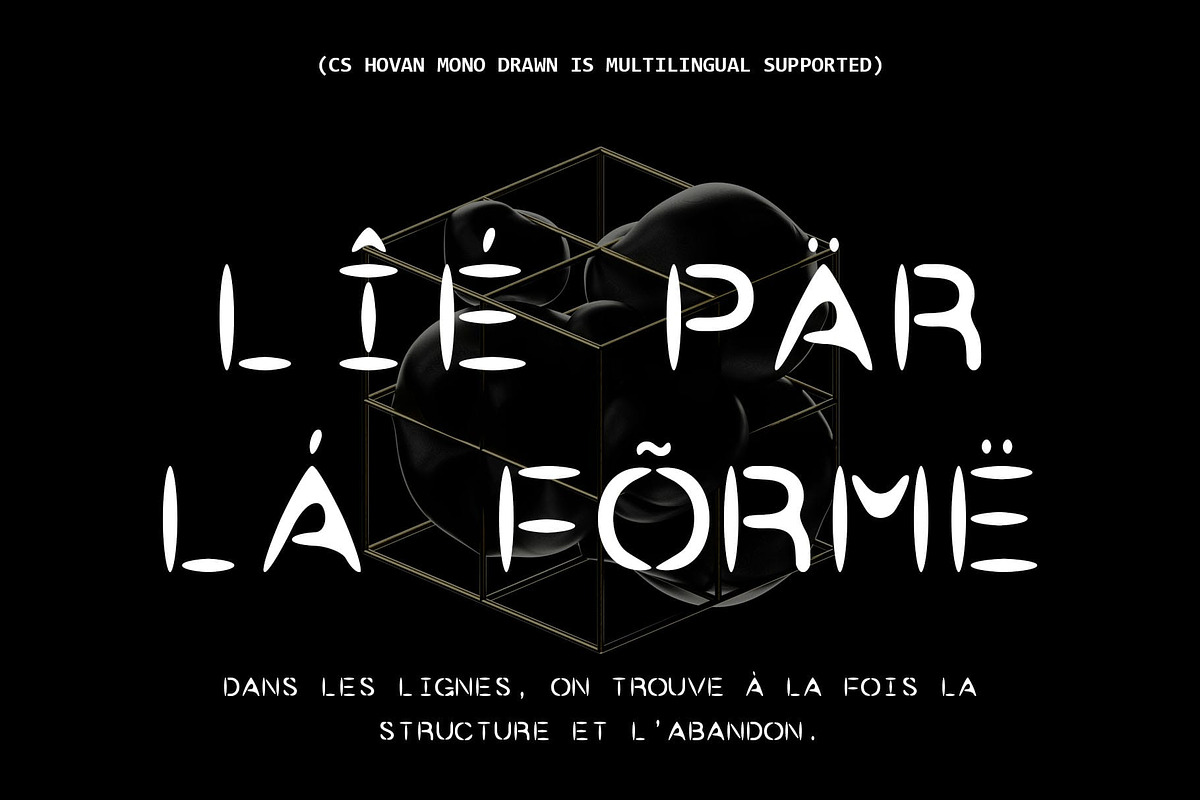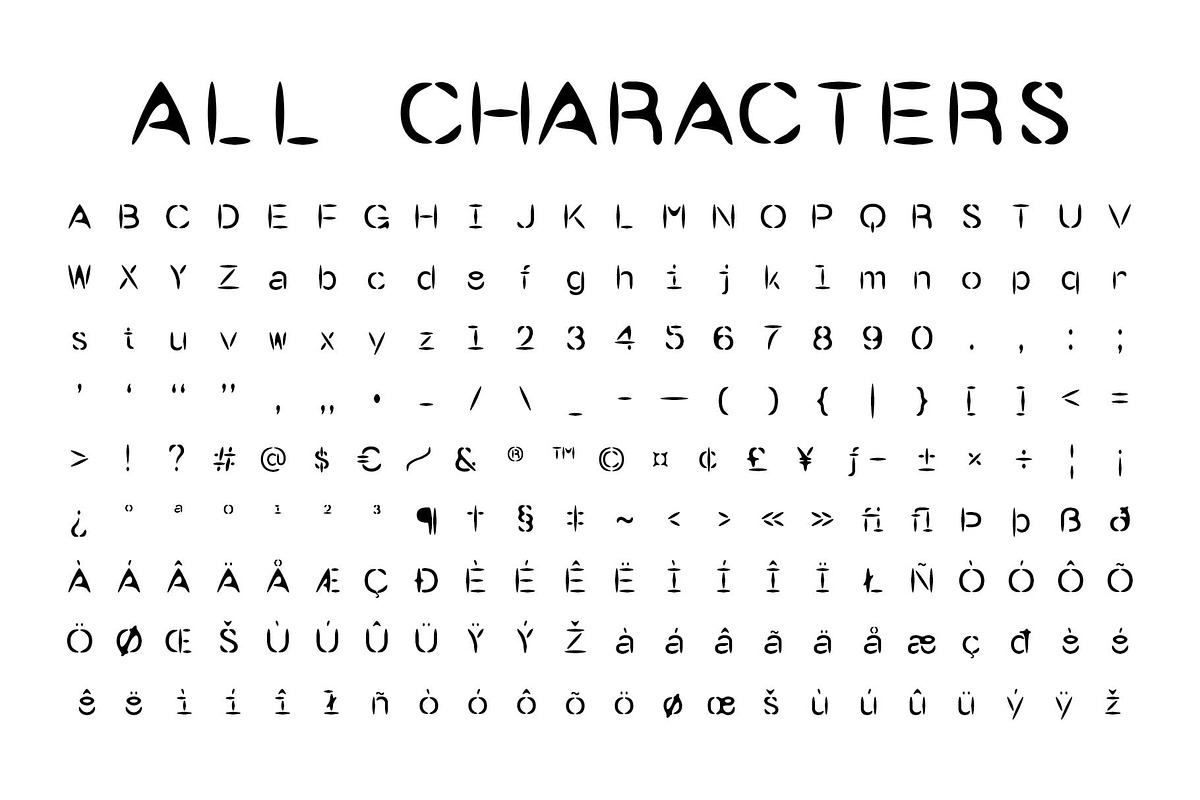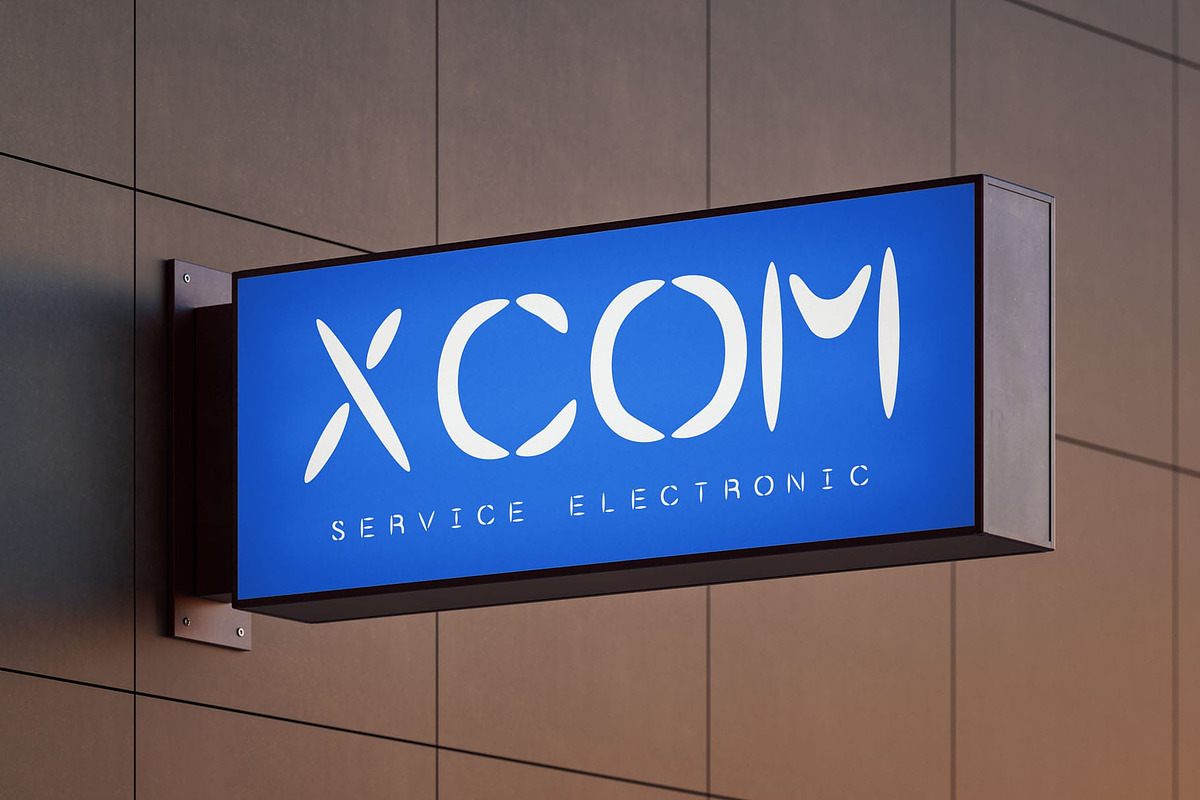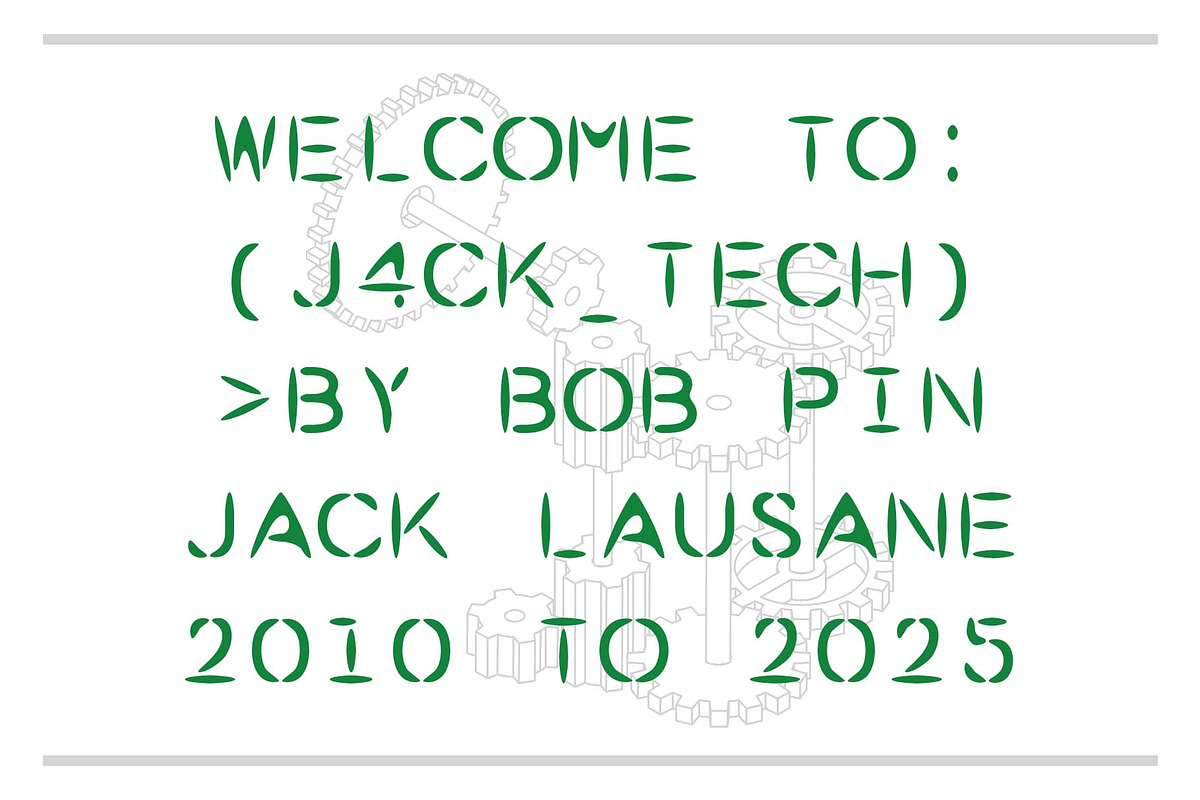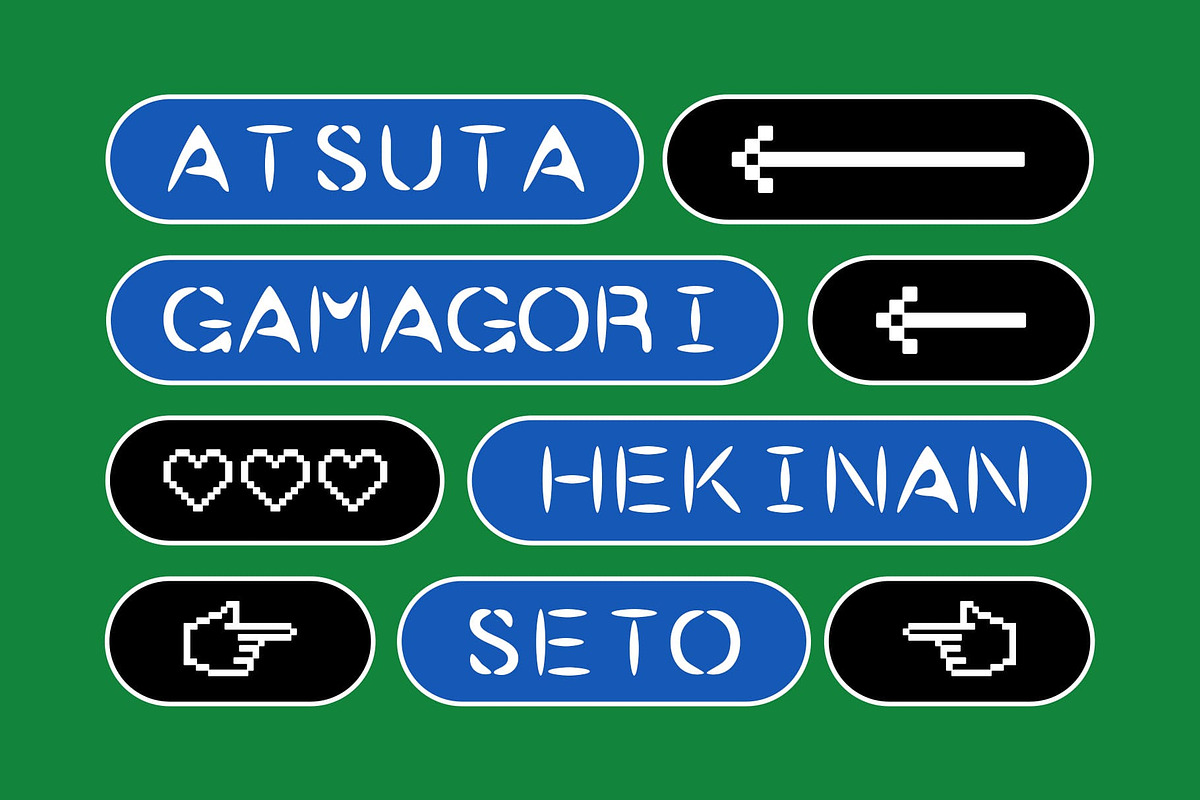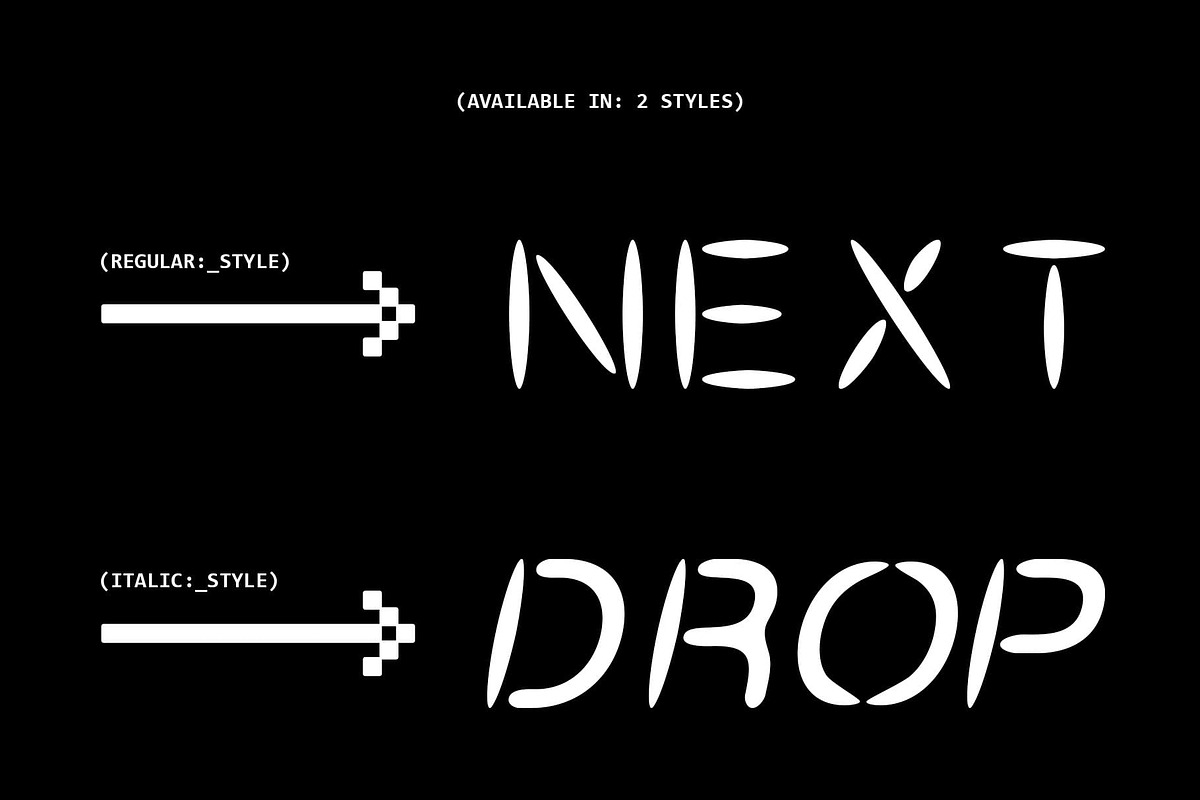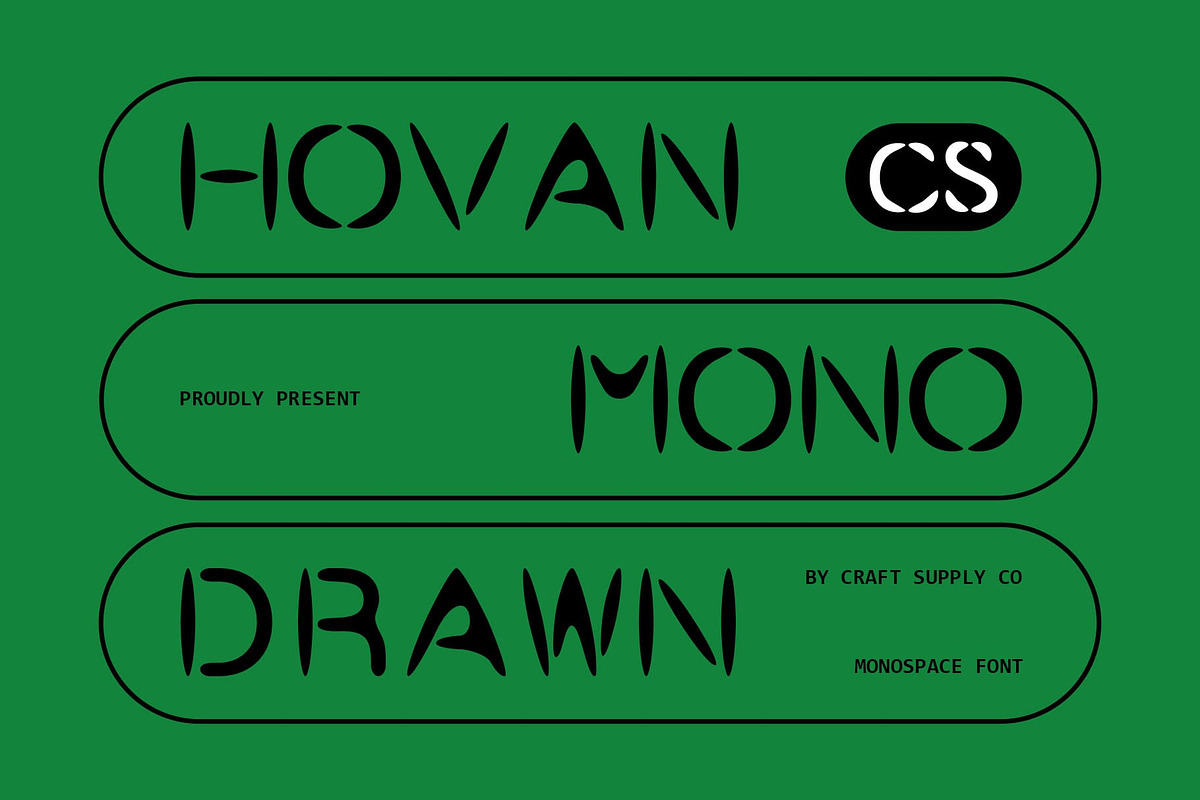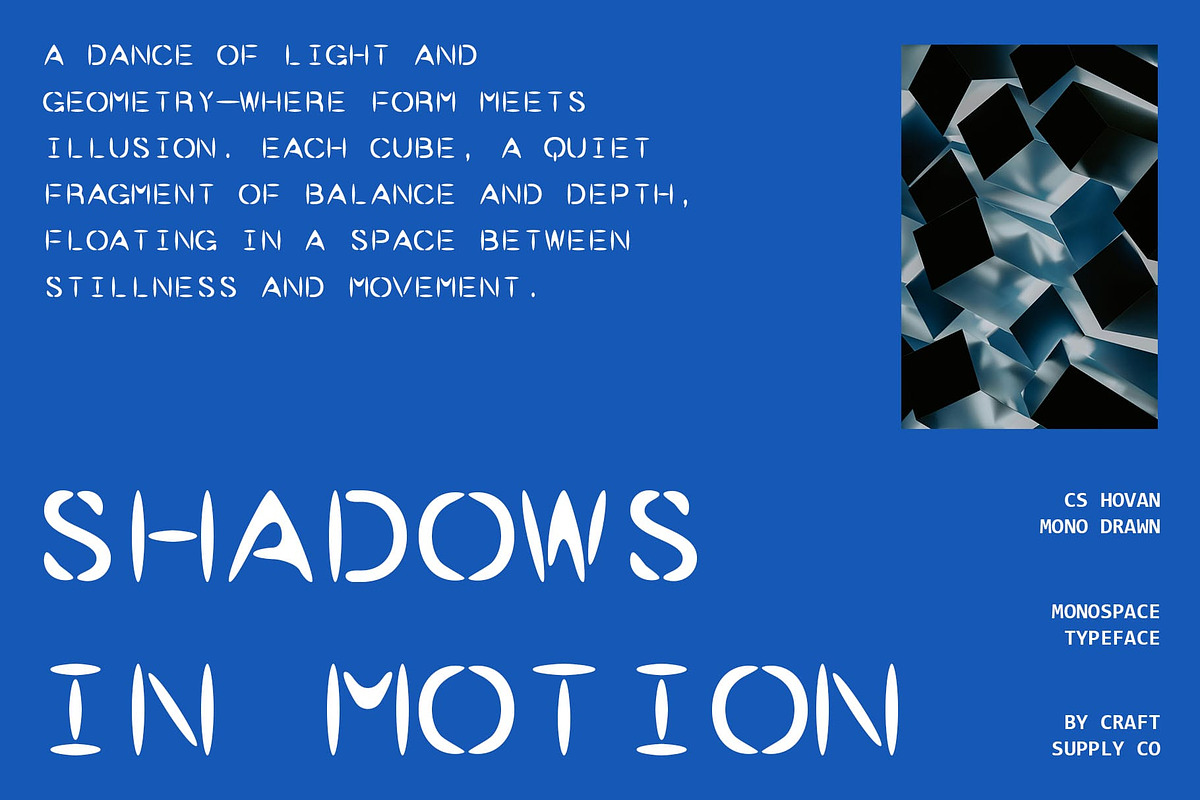
CS Hovan Mono Drawn
CS Hovan Mono Drawn – A Geometric Monospaced Font with a Human Touch
Technical Precision Meets Organic Warmth This is a modern sans-serif typeface that embraces a monospaced format, where every character occupies the same horizontal space. This uniformity lends a structured, methodical, and highly legible appearance, perfect for coding environments, system interfaces, or any design where alignment and rhythm are key. The monolinear strokes and consistent spacing create a clean grid-like feel, reinforcing the font’s technical and contemporary aesthetic.
Minimalist Geometry with Expressive Details Built on simple geometric foundations—primarily circles and rectangles—this font delivers a refined, minimalist, and highly functional look. Yet, it doesn’t fall into sterility. The added drawn effect introduces a layer of handcrafted imperfection, providing subtle texture and softness. This visual nuance makes the typeface feel more natural, approachable, and slightly playful, despite its engineered structure
Futuristic Functionality with Creative Potential The blend of precise construction and expressive detail makes this clean yet characterful font remarkably versatile. It speaks the language of modern digital design while retaining a personal and artistic edge. Whether you’re designing UI/UX interfaces, digital publications, branding for tech startups, or editorial layouts, this typeface offers a unique voice that is both rational and warm.